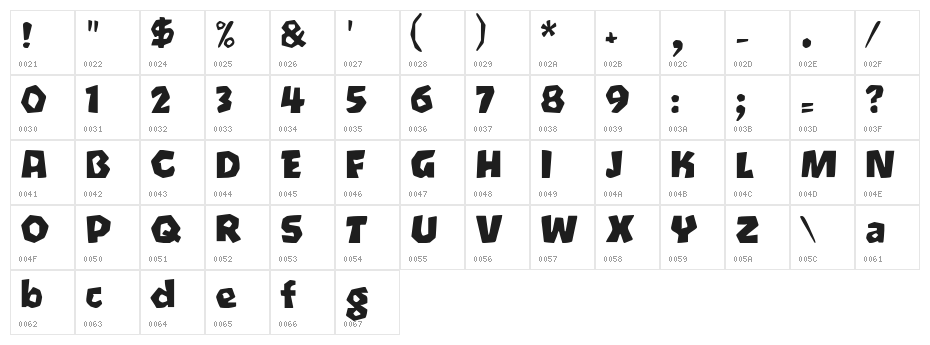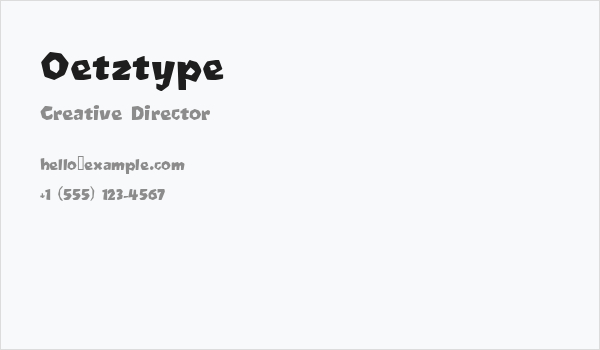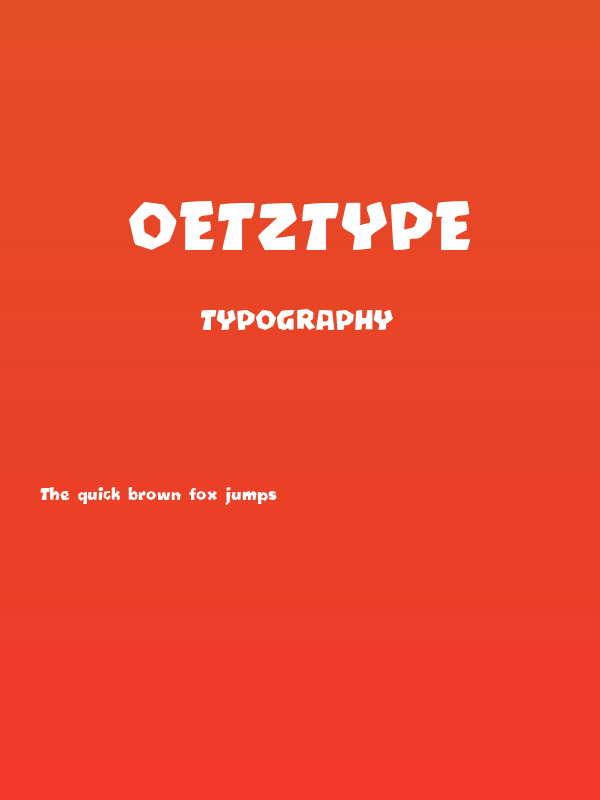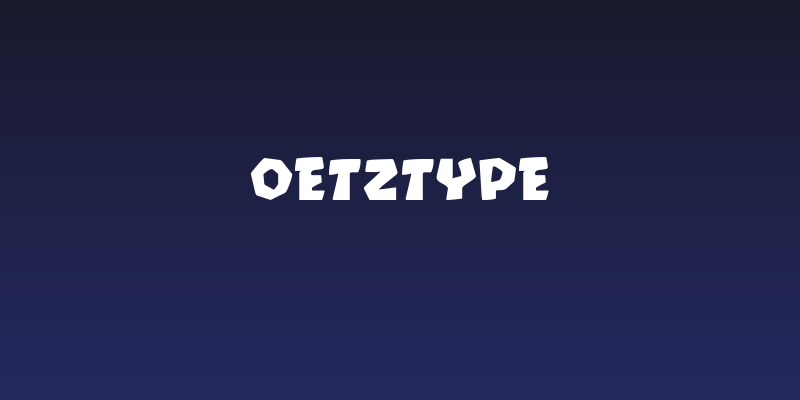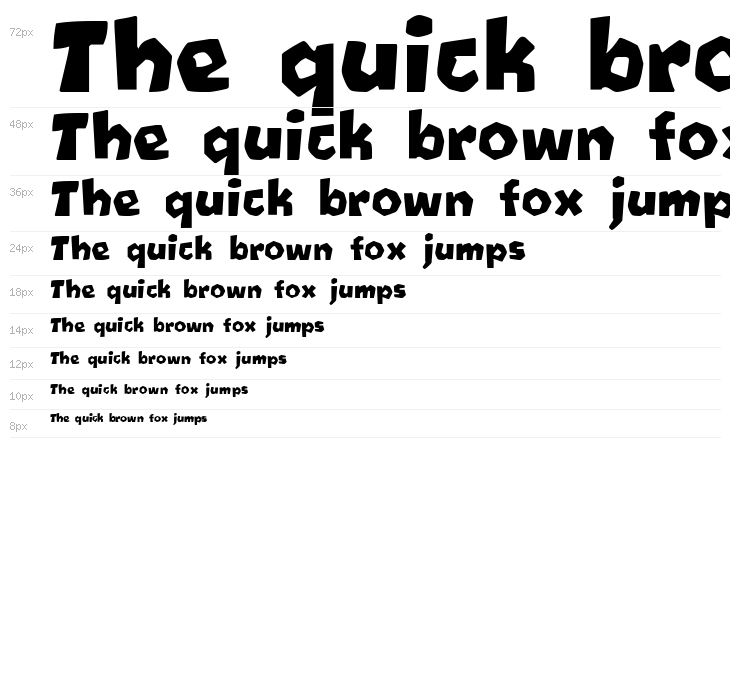
Oetztype Font
Oetztype Description
This font features a bold and playful design with a hand-drawn aesthetic. The characters are irregular and dynamic, giving a sense of movement and energy. The uppercase and lowercase letters maintain a consistent style, with thick strokes and slightly uneven edges that add to its charm. The numbers and special characters follow the same design principles, ensuring a cohesive look across all glyphs. This font is ideal for projects that require a fun and informal touch, making it suitable for creative and artistic applications.
Overall StylePlayful, Artistic
Use CaseHeadlines, Logos, Posters
Proposed ProjectsIdeal for children's books, posters, logos, and creative branding projects.